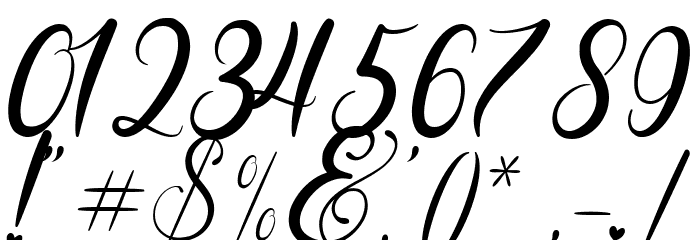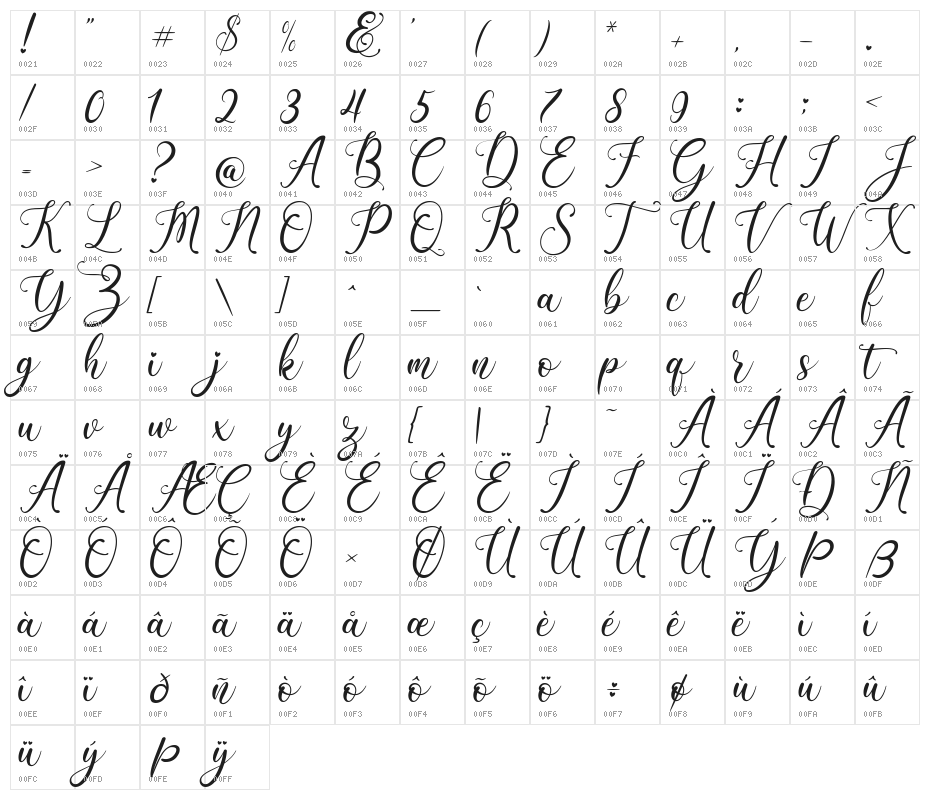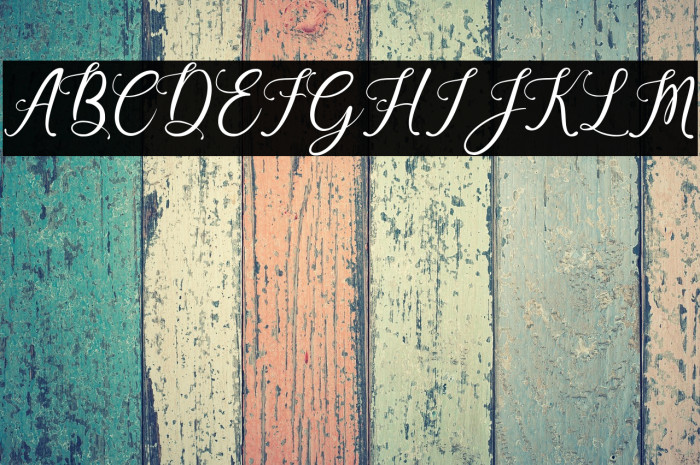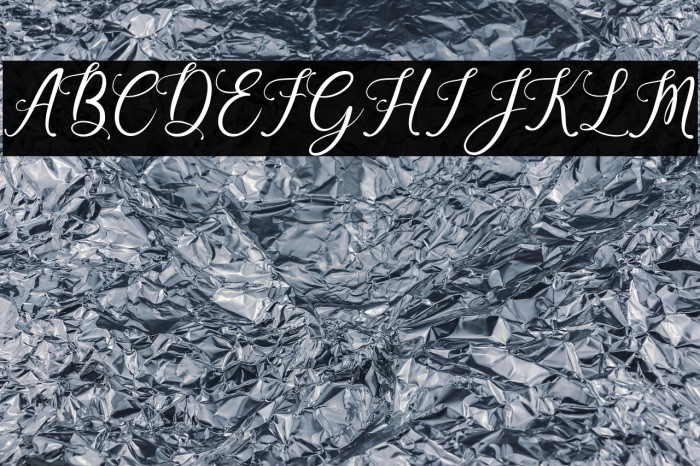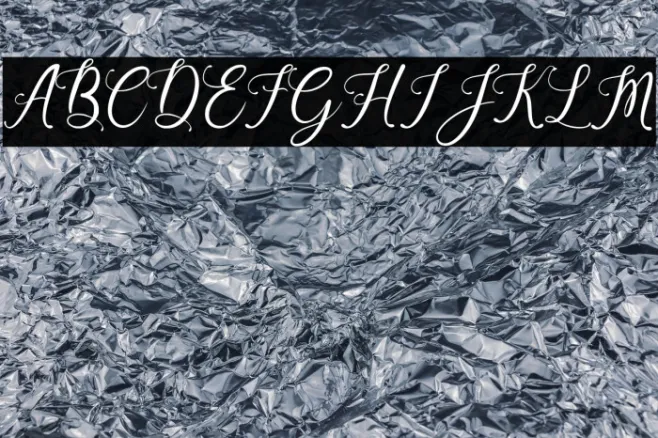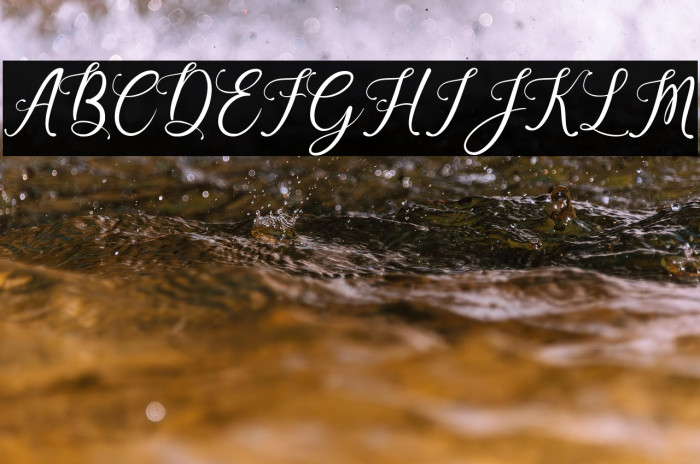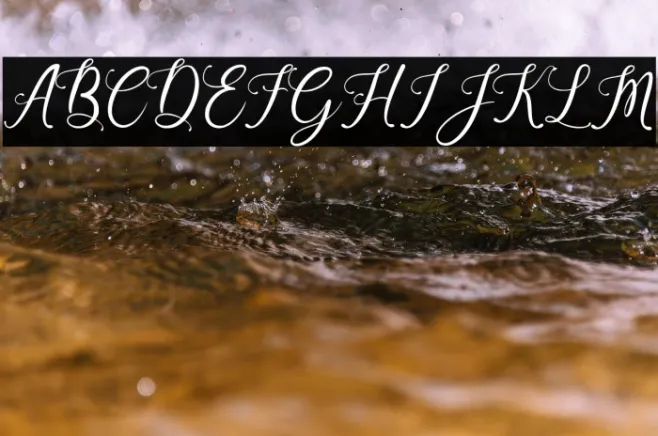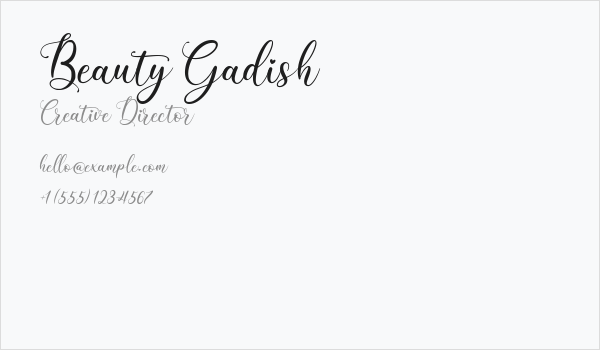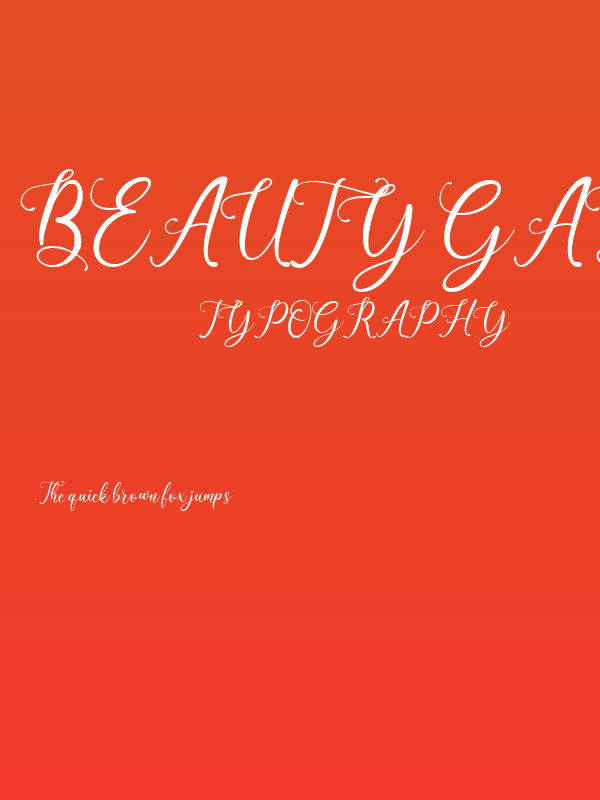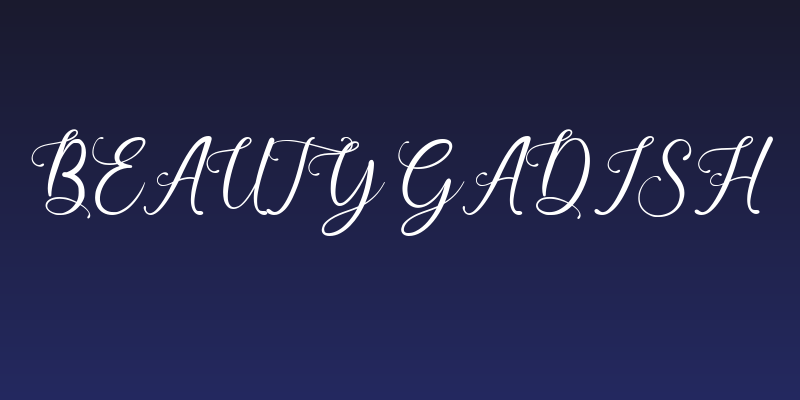
Beauty Gadish Font
Beauty Gadish Description
This elegant script font features graceful, flowing lines that create a sense of movement and sophistication. The uppercase letters are characterized by their ornate loops and flourishes, while the lowercase letters maintain a consistent fluidity with slightly exaggerated curves. The numerals are stylishly integrated, complementing the overall aesthetic. Special characters are thoughtfully designed to match the font's decorative style, making it ideal for creative and artistic projects. The font's high contrast in stroke thickness adds to its dramatic and eye-catching appearance.
| Proposed Projects | Ideal for wedding invitations, elegant branding, greeting cards, and decorative posters. |